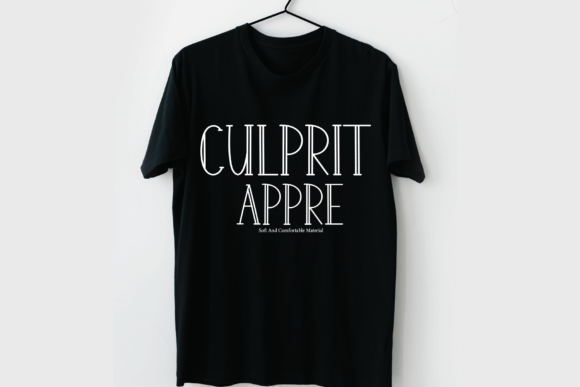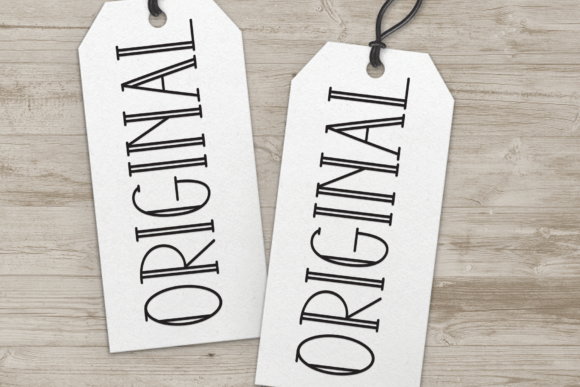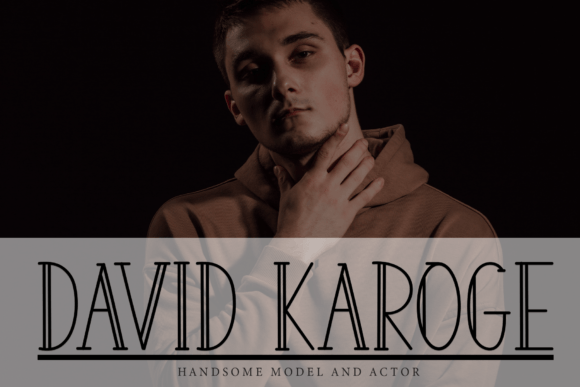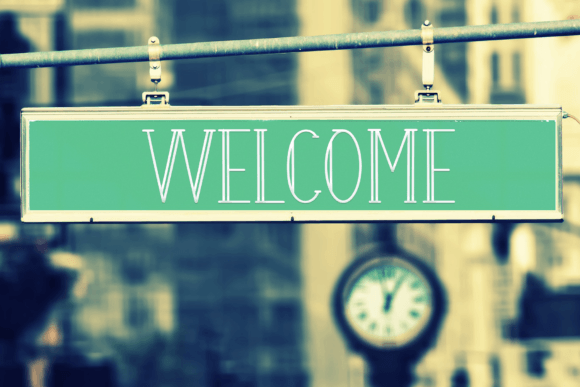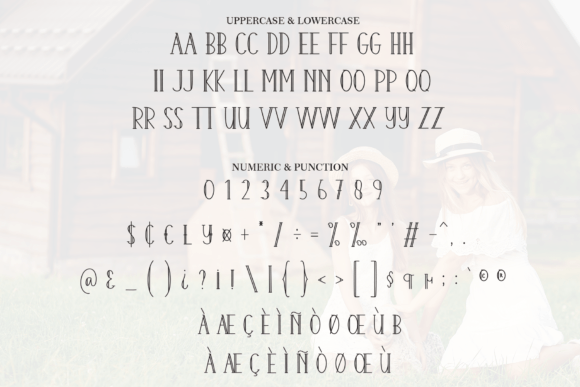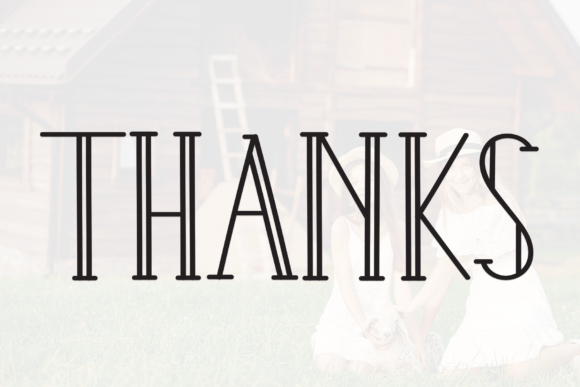
Introducing Happy Farmhouse Font: The Perfect Addition to Your Design Collection
Are you a designer or crafter looking for a font that can add a touch of warmth and personality to your projects? Look no further than the Happy Farmhouse Font! This sweet and friendly handwritten display font is perfect for creating wedding invitations, cards, and other designs that require a fun and playful touch.
What Makes Happy Farmhouse Font So Special?
Happy Farmhouse Font is a fresh and neat font that is designed to bring a sense of joy and whimsy to your designs. Its handwritten style gives it a personal and approachable feel, making it perfect for projects that require a touch of warmth and personality. Whether you’re creating wedding invitations, birthday cards, or other celebratory designs, Happy Farmhouse Font is sure to make your project stand out.
Key Features of Happy Farmhouse Font
- Sweet and Friendly Design: Happy Farmhouse Font has a sweet and friendly design that is perfect for creating designs that require a playful touch.
- Handwritten Style: The font’s handwritten style gives it a personal and approachable feel that is perfect for a variety of design projects.
- Fresh and Neat: The font is fresh and neat, making it easy to read and perfect for use in a variety of design projects.
- Perfect for Wedding Invitations and Cards: Happy Farmhouse Font is ideal for creating wedding invitations, cards, and other celebratory designs.
How to Use Happy Farmhouse Font in Your Designs
Happy Farmhouse Font is a versatile font that can be used in a variety of design projects. Here are a few ideas for how you can use this font in your designs:
- Wedding Invitations: Use Happy Farmhouse Font to create beautiful and personalized wedding invitations that will set the tone for the big day.
- Birthday Cards: Add a touch of whimsy and fun to your birthday cards with Happy Farmhouse Font.
- Party Invitations: Use Happy Farmhouse Font to create fun and playful party invitations that will get your guests excited for the celebration.
- DIY Crafts: Happy Farmhouse Font is perfect for use in DIY crafts, such as scrapbooking, journaling, and other paper crafts.
Why Designers and Crafters Love Happy Farmhouse Font
Designers and crafters love Happy Farmhouse Font for a variety of reasons. Here are a few:
- Easy to Read: The font is easy to read, making it perfect for use in a variety of design projects.
- Versatile: Happy Farmhouse Font is a versatile font that can be used in a variety of design projects, from wedding invitations to DIY crafts.
- Unique and Playful: The font’s unique and playful design makes it perfect for designers and crafters who want to add a touch of personality to their projects.
In conclusion, Happy Farmhouse Font is a sweet and friendly handwritten display font that is perfect for designers and crafters who want to add a touch of warmth and personality to their projects. With its fresh and neat design, Happy Farmhouse Font is ideal for use in a variety of design projects, from wedding invitations to DIY crafts. So why wait? Download Happy Farmhouse Font today and start creating beautiful and unique designs that will make your project stand out!